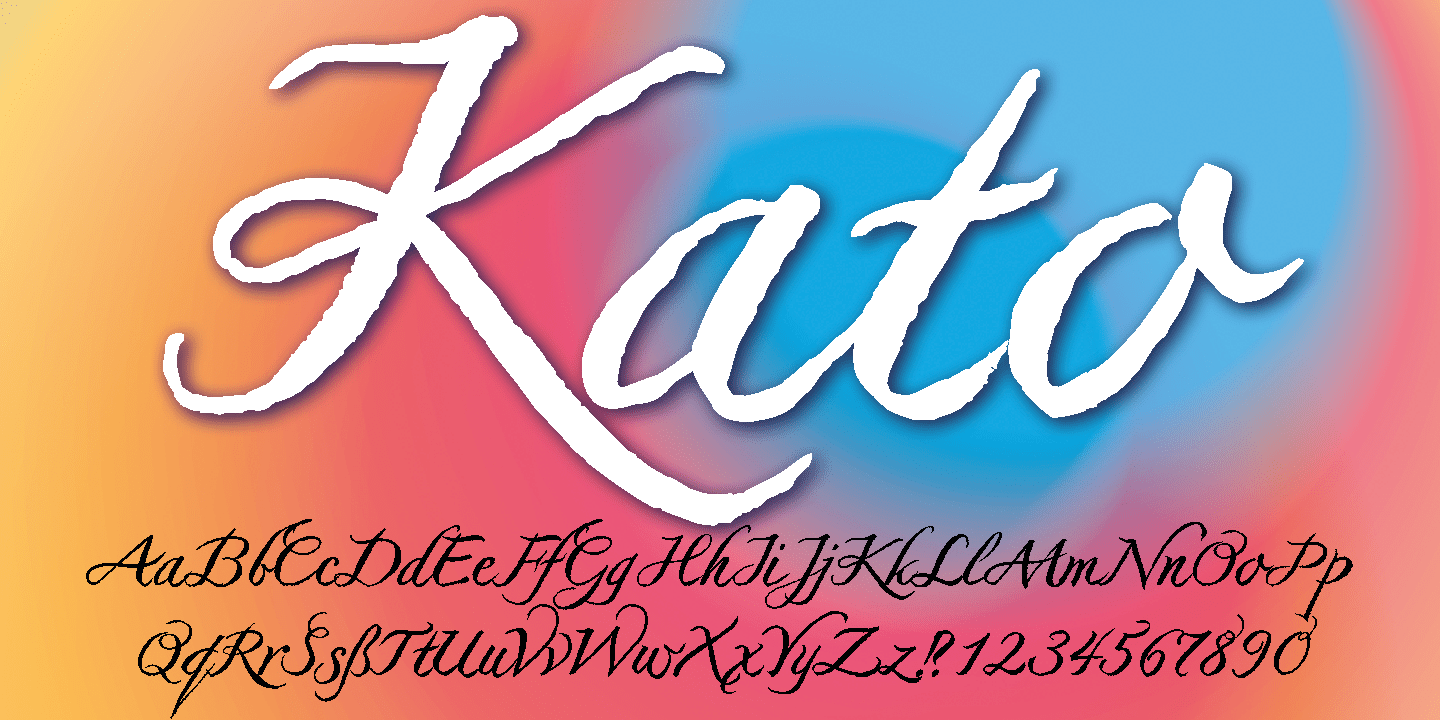
Kato
Font Family by Autographis
Kato is a handwritten mostly-joining script with long, but not overly long ascenders and descenders, that make it a very elegant font.
Scanned and finished carefully by hand on screen, with that little bit of extra effort to keep the ?rough? touch.